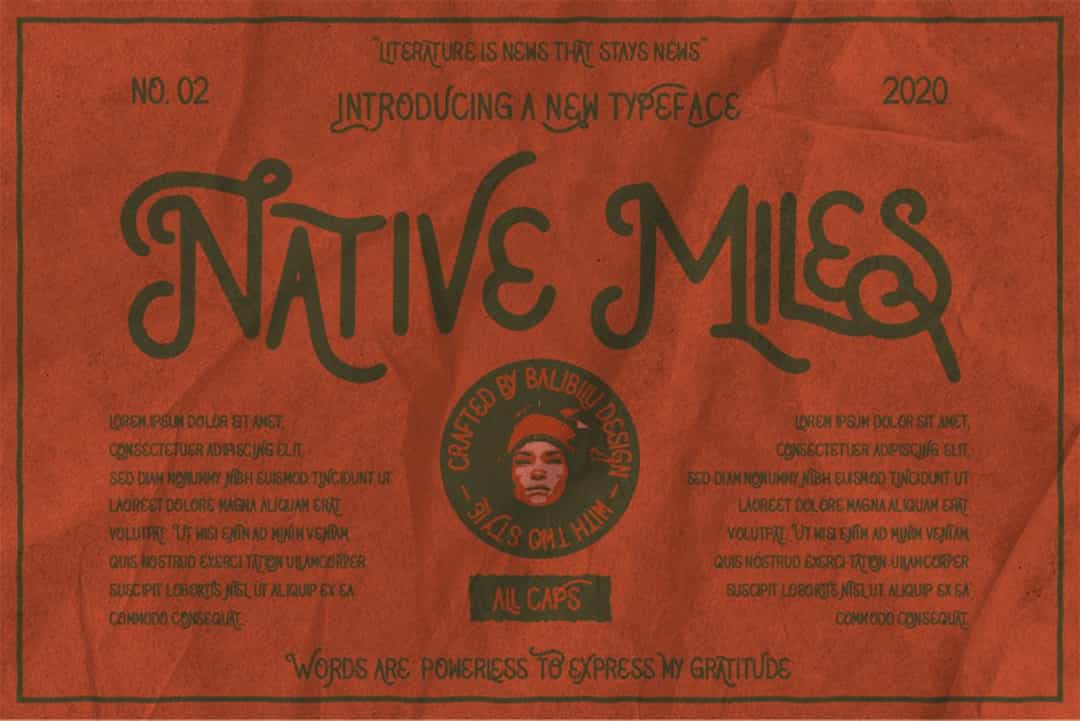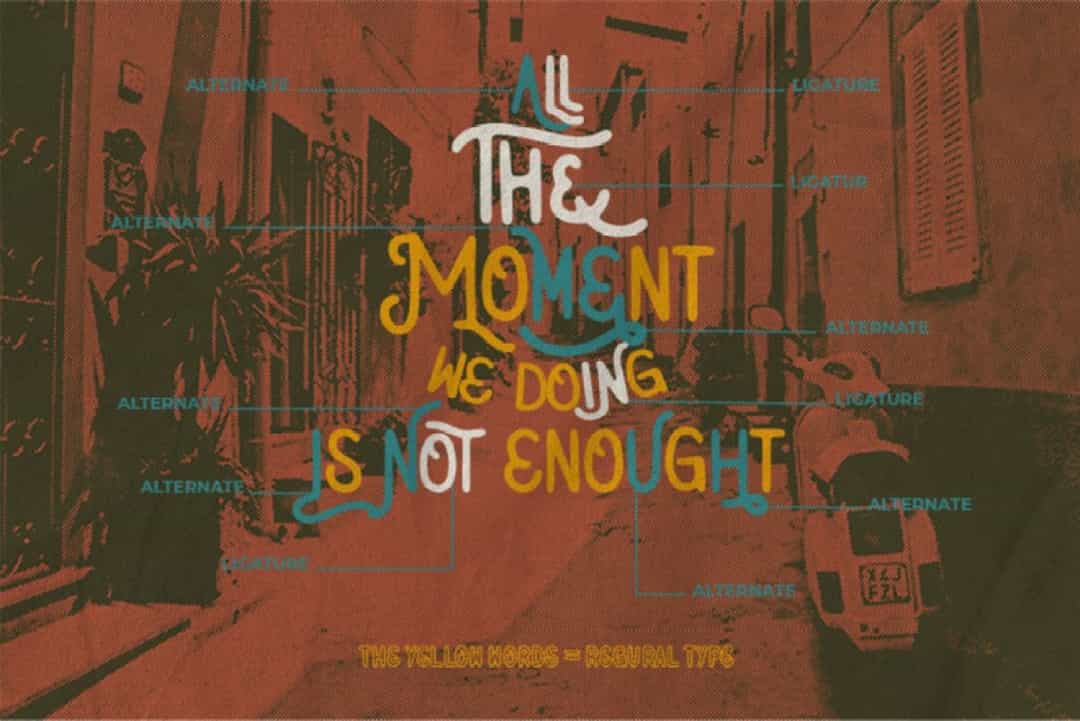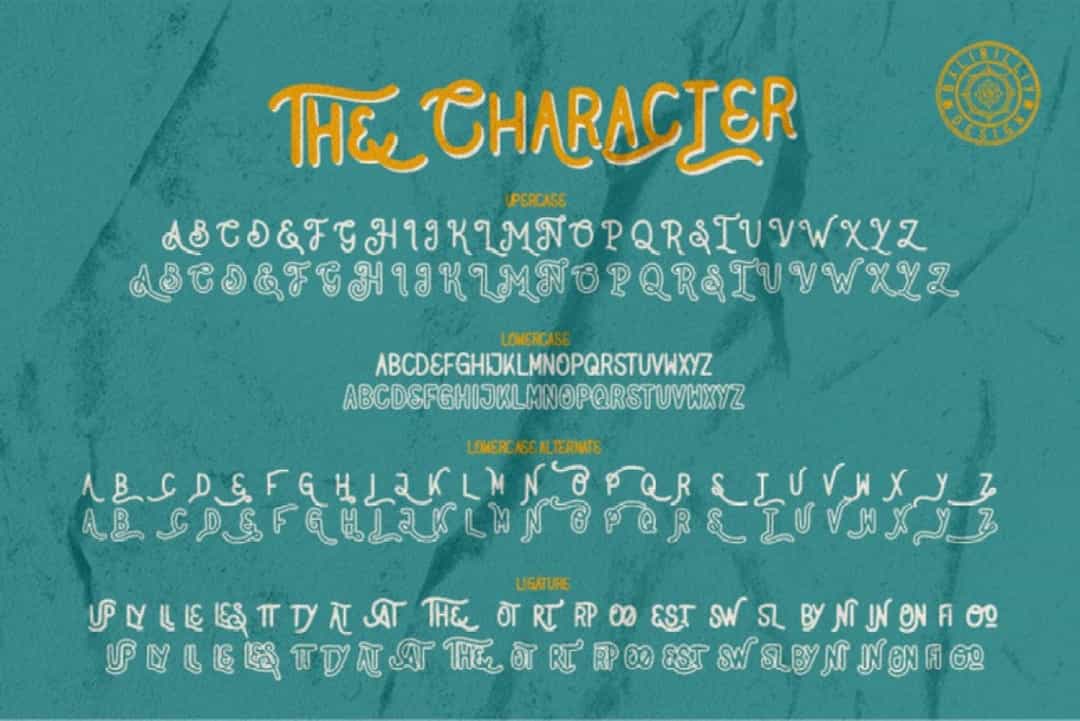
Native Miles is an antique display sans serif typeface which features two different styles: regular and outline. The font was designed for the professional and designer that require a retro style and distinctive font.